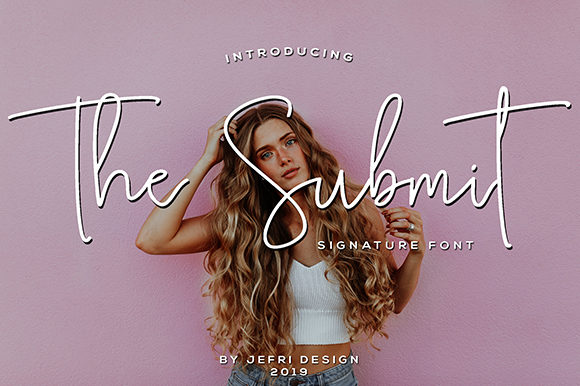
Introducing The Submit Font - A Stunning Script Font with Unparalleled Charm
In the realm of digital artistry, where creativity flows like a river, there exists a font that captures the essence of elegance and charm like no other - The Submit Font. This exquisite script font, hailing from the esteemed Bluestype Studio, is a masterpiece crafted with meticulous care and attention to detail. With its graceful curves, playful flourishes, and undeniable allure, The Submit Font is a true gem that will elevate any project to new heights of sophistication.
Journey into a world of possibilities with The Submit Font. Dive into the realm of handwritten notes, where every letter dances across the page with a touch of whimsy and grace. Craft stunning invitations that exude a timeless charm, transporting your recipients to an era of elegance and romance. Unleash your creativity and design eye-catching logos that radiate a unique and memorable personality. The Submit Font is the perfect companion for any project that demands a touch of sophistication and charm.
Immerse yourself in the beauty of The Submit Font's versatility. Effortlessly blend it with other fonts to create harmonious compositions that captivate the senses. Its delicate strokes and elegant lines seamlessly complement a wide range of visual styles, from vintage-inspired designs to modern and contemporary creations. Whether you're a seasoned graphic designer or just starting your creative journey, The Submit Font is an invaluable asset that will unlock new avenues of expression.
Indulge in the emotional resonance that The Submit Font evokes. Each letter is imbued with a sense of warmth and personality, inviting viewers to connect on a deeper level. Create designs that resonate with audiences, leaving a lasting impression that lingers long after the final stroke is rendered. From heartfelt greeting cards to captivating social media posts, The Submit Font possesses the power to stir emotions and forge meaningful connections between your creations and your audience.
Don't miss this opportunity to elevate your creative repertoire with The Submit Font. Join the ranks of discerning designers who have discovered the immense power of this remarkable font. Unleash your imagination and embark on a journey of endless creativity, where The Submit Font serves as your trusted companion. Embrace the charm, grace, and versatility of this exceptional font, and watch as your projects blossom into breathtaking works of art.